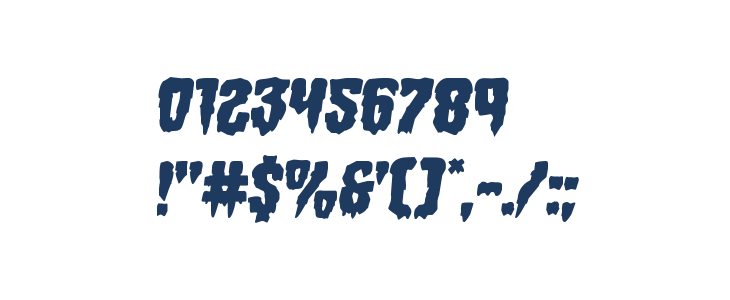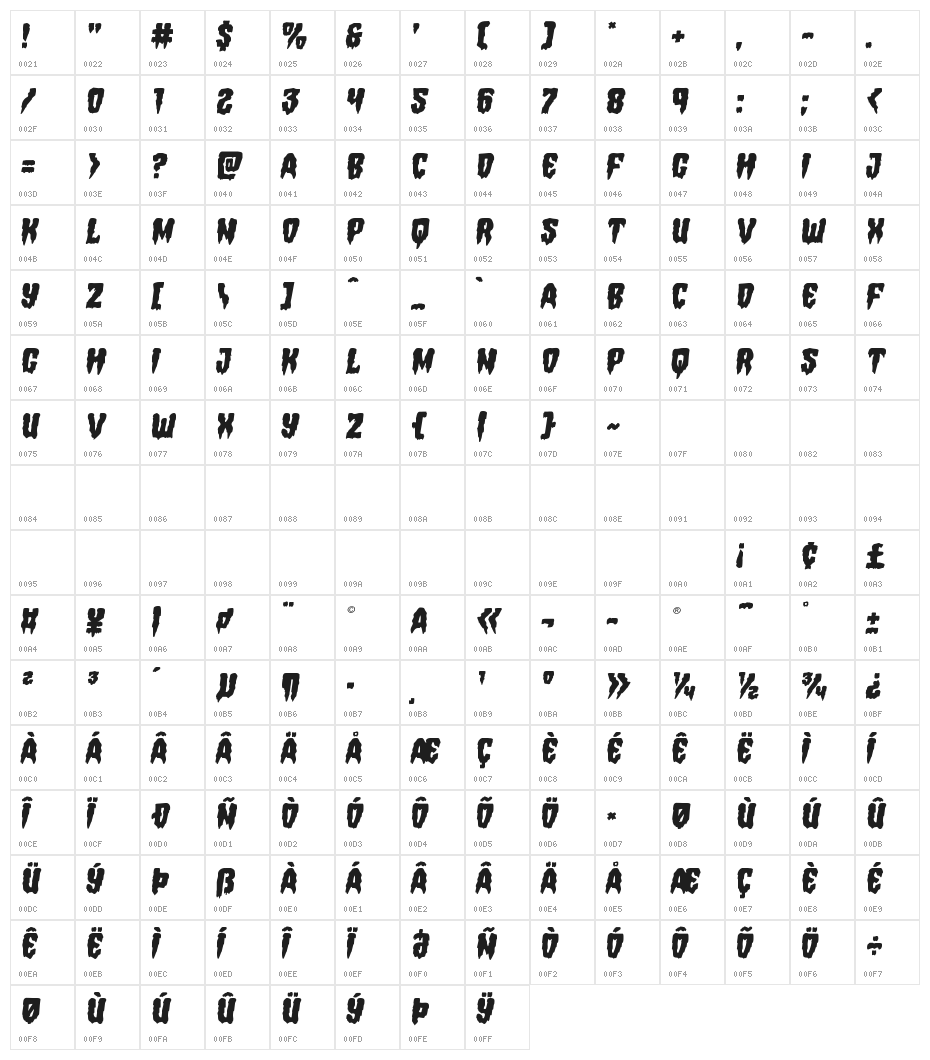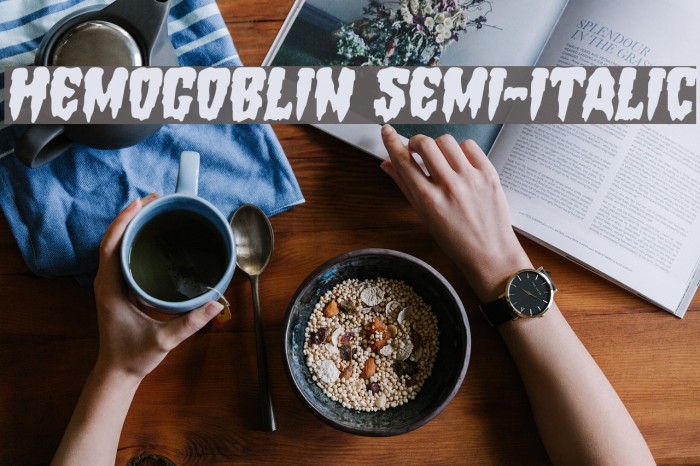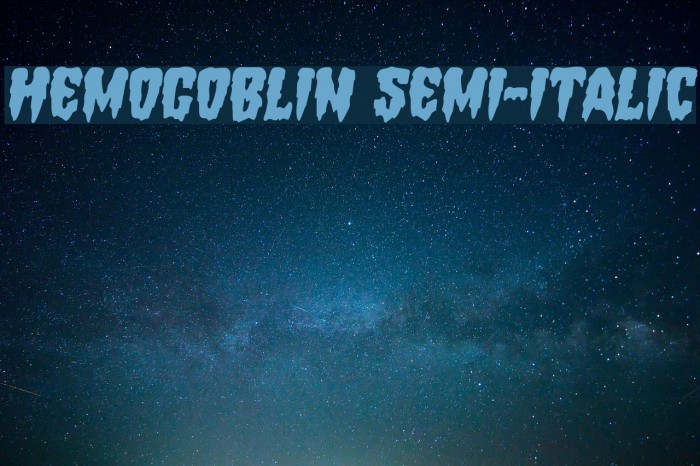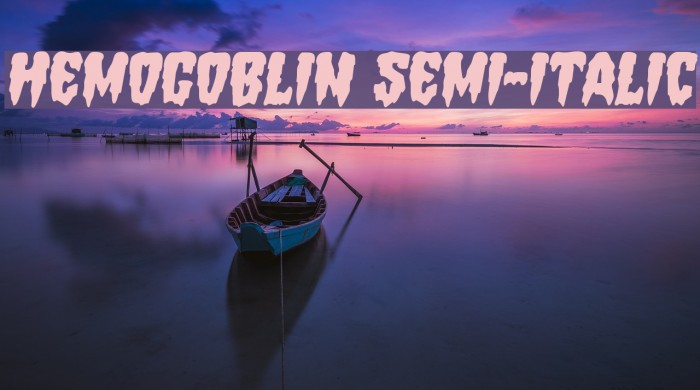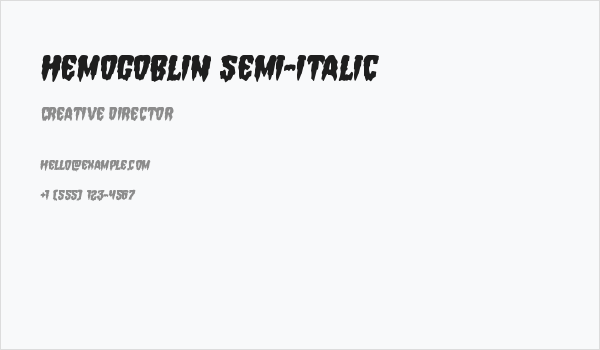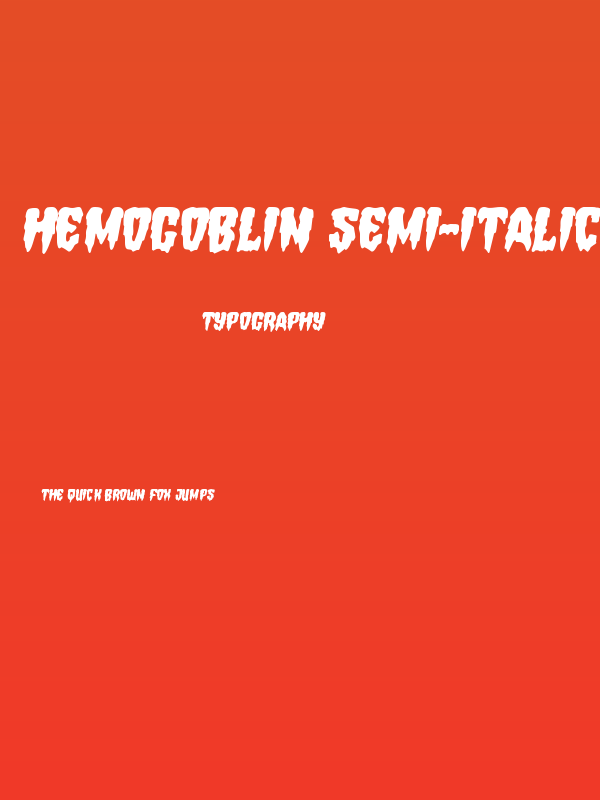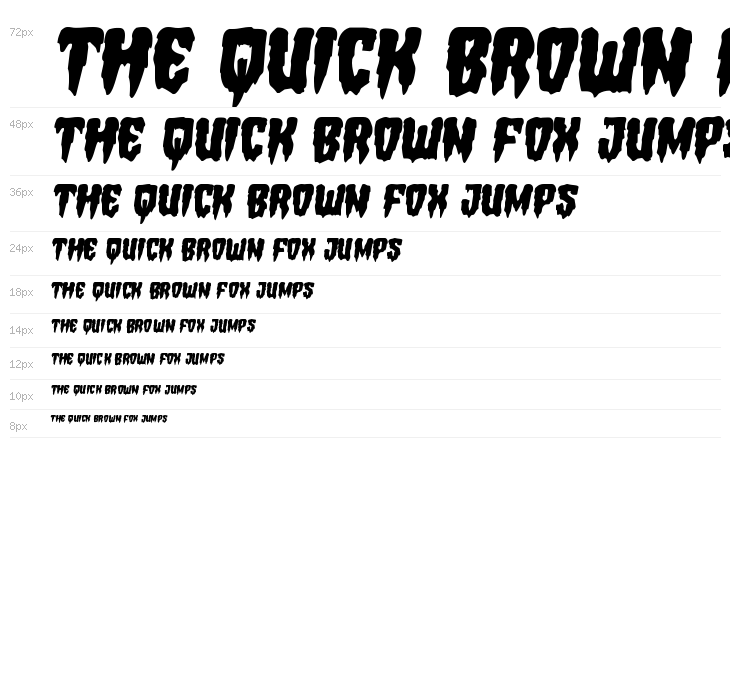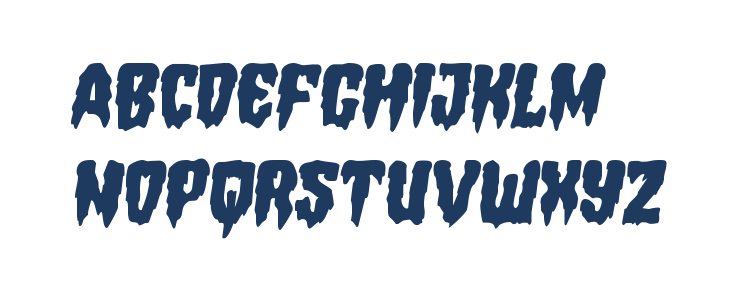
Hemogoblin Semi-Italic Font
Hemogoblin Semi-Italic Description
This font features a bold and jagged design, reminiscent of dripping or melting forms, giving it a distinctly eerie and horror-themed appearance. The characters are heavily stylized with irregular edges, creating a sense of movement and chaos. The uppercase and lowercase letters maintain a consistent style, with the uppercase being slightly more pronounced. Numbers and special characters follow the same design principles, ensuring a cohesive look across all glyphs. This font is perfect for creating a spooky or unsettling atmosphere, making it ideal for Halloween-themed projects or any design that requires a touch of the macabre.
| Proposed Projects | Ideal for Halloween posters, horror movie titles, haunted house flyers, or any project requiring a spooky aesthetic. |